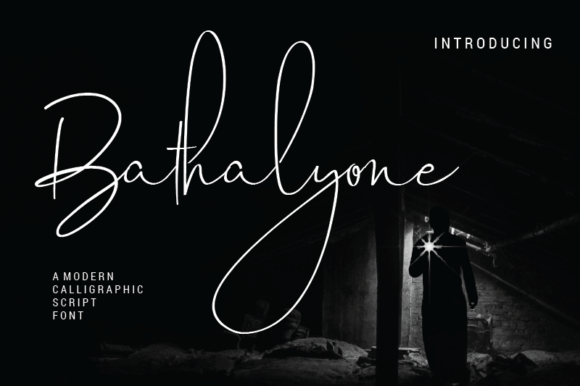
Introducing Bathalyone Font - A Typographic Masterpiece for Artists and Designers
Immerse yourself in the world of captivating calligraphy with Bathalyone Font, a script typeface designed to elevate your creative endeavors to new heights. Crafted with meticulous attention to detail by the renowned Smart Studio, Bathalyone embodies the essence of elegance and grace.
With its delicate strokes and harmonious curves, Bathalyone invites you on a journey of artistic exploration. Each letterform is a testament to the beauty of handwritten script, carefully balanced to create a visually stunning masterpiece. Whether you're a seasoned designer or just starting your creative journey, Bathalyone will empower you to express your ideas with effortless style.
But Bathalyone is more than just a font; it's an invitation to unleash your imagination. Its versatility knows no bounds, making it the perfect choice for a myriad of design projects. From heartfelt invitations to captivating branding, Bathalyone has the power to transform your creations into works of art.
Experience the transformative power of Bathalyone Font today and witness how its exquisite charm enhances your design endeavors. Let its flowing lines and alluring curves captivate your audience, leaving an unforgettable impression that will inspire and enchant. Dive into the world of Bathalyone and discover the limitless possibilities that await you.